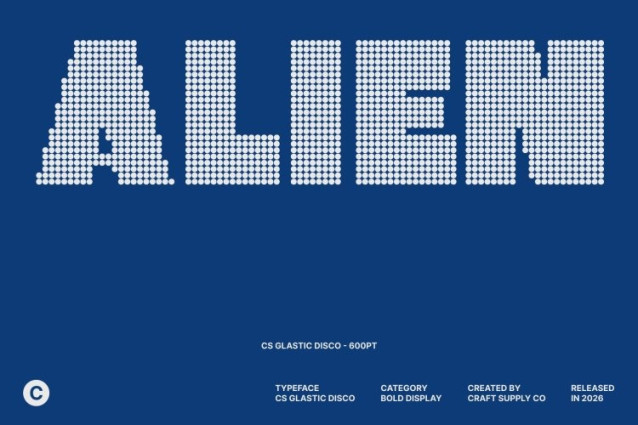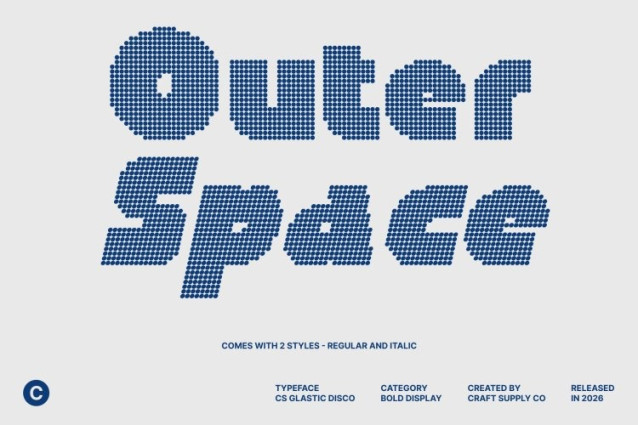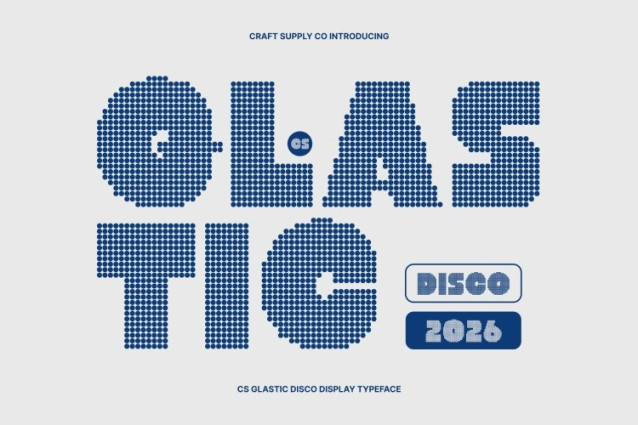
CS Glastic Disco Font
CS Glastic Disco Font – This is a modern sans serif display font designed to deliver bold visual impact through strong geometric construction and confident proportions. Infused with a subtle disco attitude, this font feels modern, expressive, and full of rhythmic energy perfect for designs that demand attention and contemporary flair.
Clean Geometry with Confident Personality
The letterforms are built from sharp geometric shapes and solid structures, creating a clean, precise, and contemporary appearance. Strong lines, balanced spacing, and bold weight give the font a powerful stance that feels stable and authoritative. This clear geometric foundation ensures excellent readability while projecting strength and modern sophistication.
Funky Details with Lively Modern Rhythm
What makes this font stand out is its funky twist hidden within the geometry. Playful proportions and unexpected details introduce movement and personality, giving the font a lively, upbeat rhythm reminiscent of modern disco culture. This fusion of structure and funk creates a unique visual energy bold but not rigid, expressive without losing clarity.
Perfect for Bold Branding and Expressive Visuals
Designed for high-impact applications, this font excels in branding, posters, logos, packaging, and promotional materials. Its bold geometric style combined with funky modern energy makes it ideal for creative brands, fashion graphics, entertainment visuals, music-related designs, and contemporary campaigns that want to feel confident, stylish, and alive.